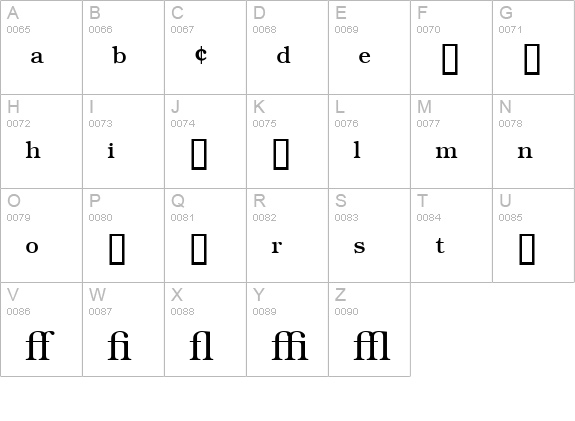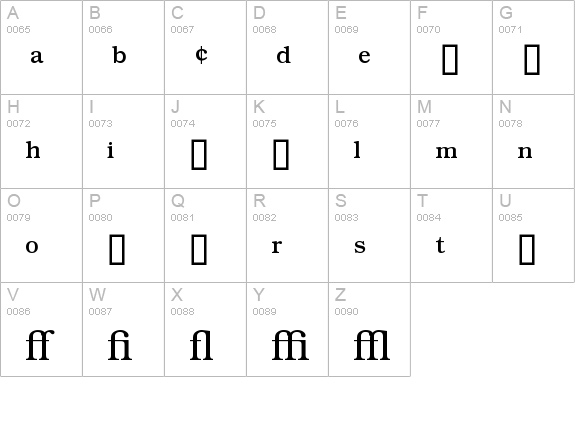
BookwomanExp LightSH Font Details
BookwomanExp LightSH is a graceful and elegant font that exudes sophistication and charm. Its delicate strokes and subtle curves make it perfect for adding a touch of refinement to any design project. This font is versatile and can be used for a wide range of creative projects, from branding to invitations to book covers. Best of all, BookwomanExp LightSH is available for free download at FontsMarket.com. Whether you are a professional designer or a casual creator, this font is a valuable addition to your font library. Its timeless appeal and classic style will elevate your designs and leave a lasting impression on your audience. Download BookwomanExp LightSH today and let your creativity shine.